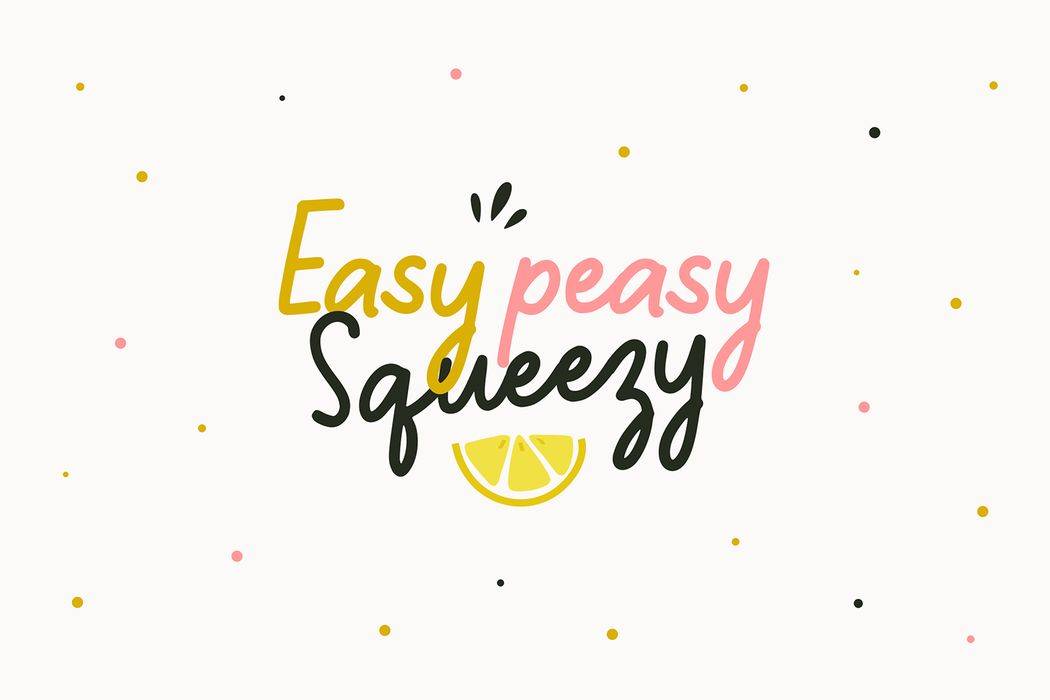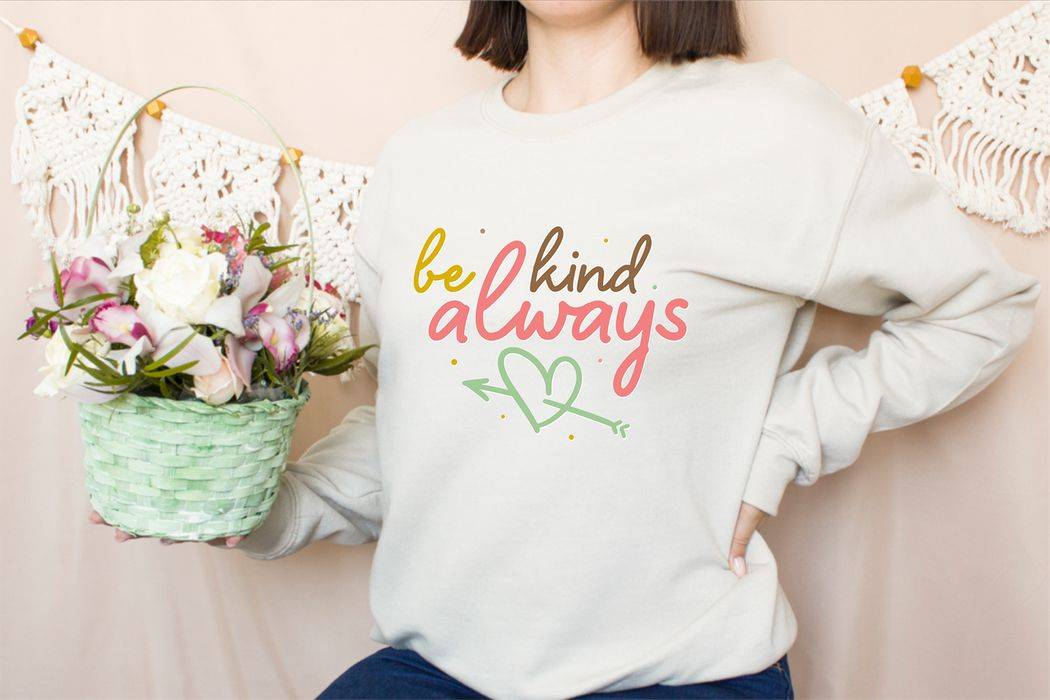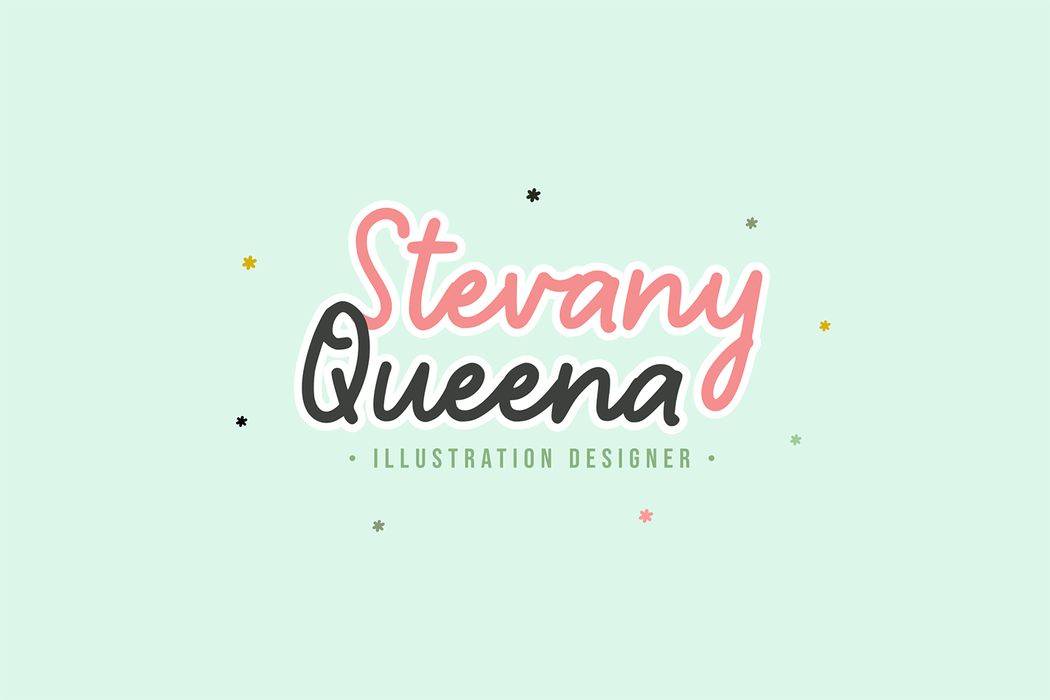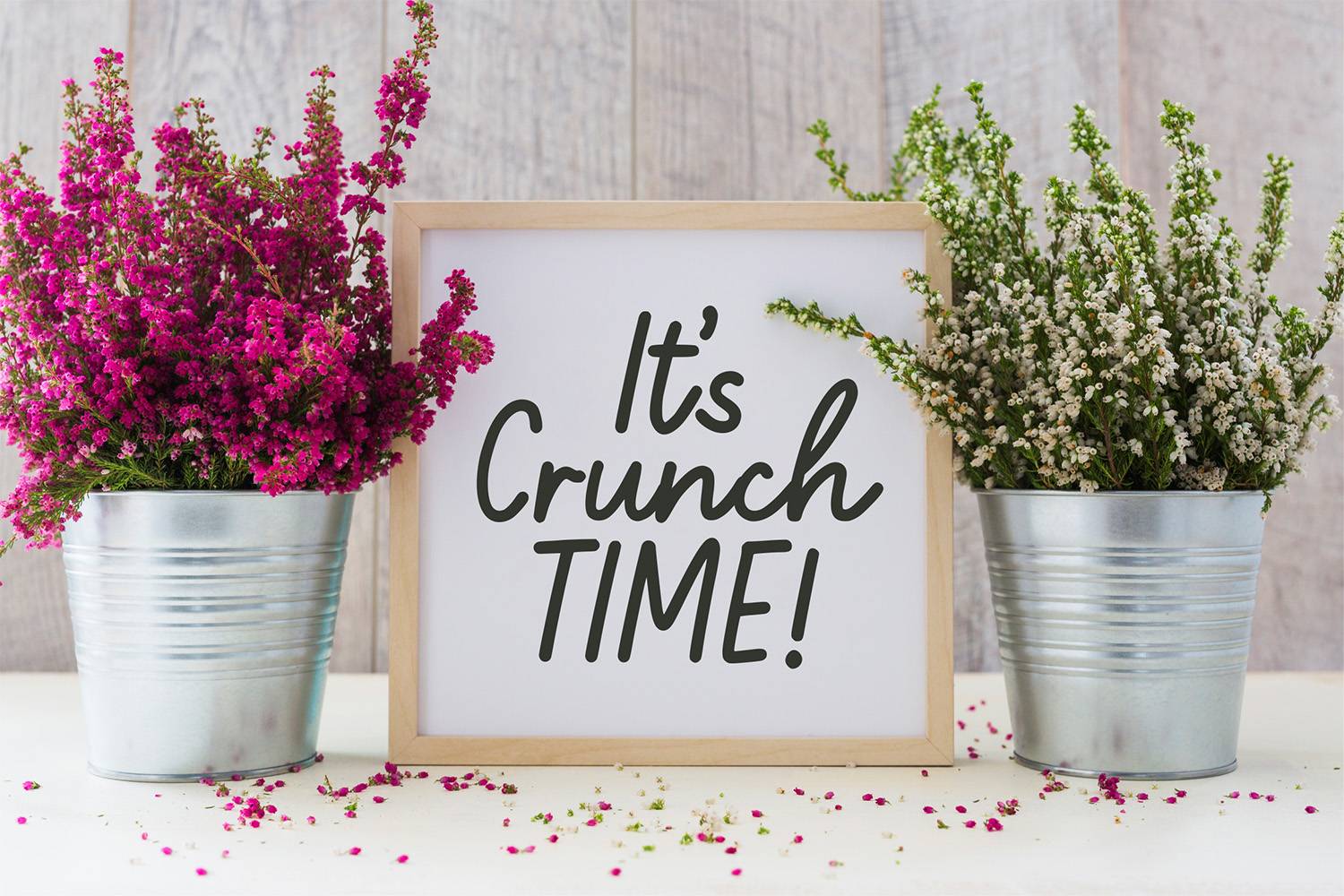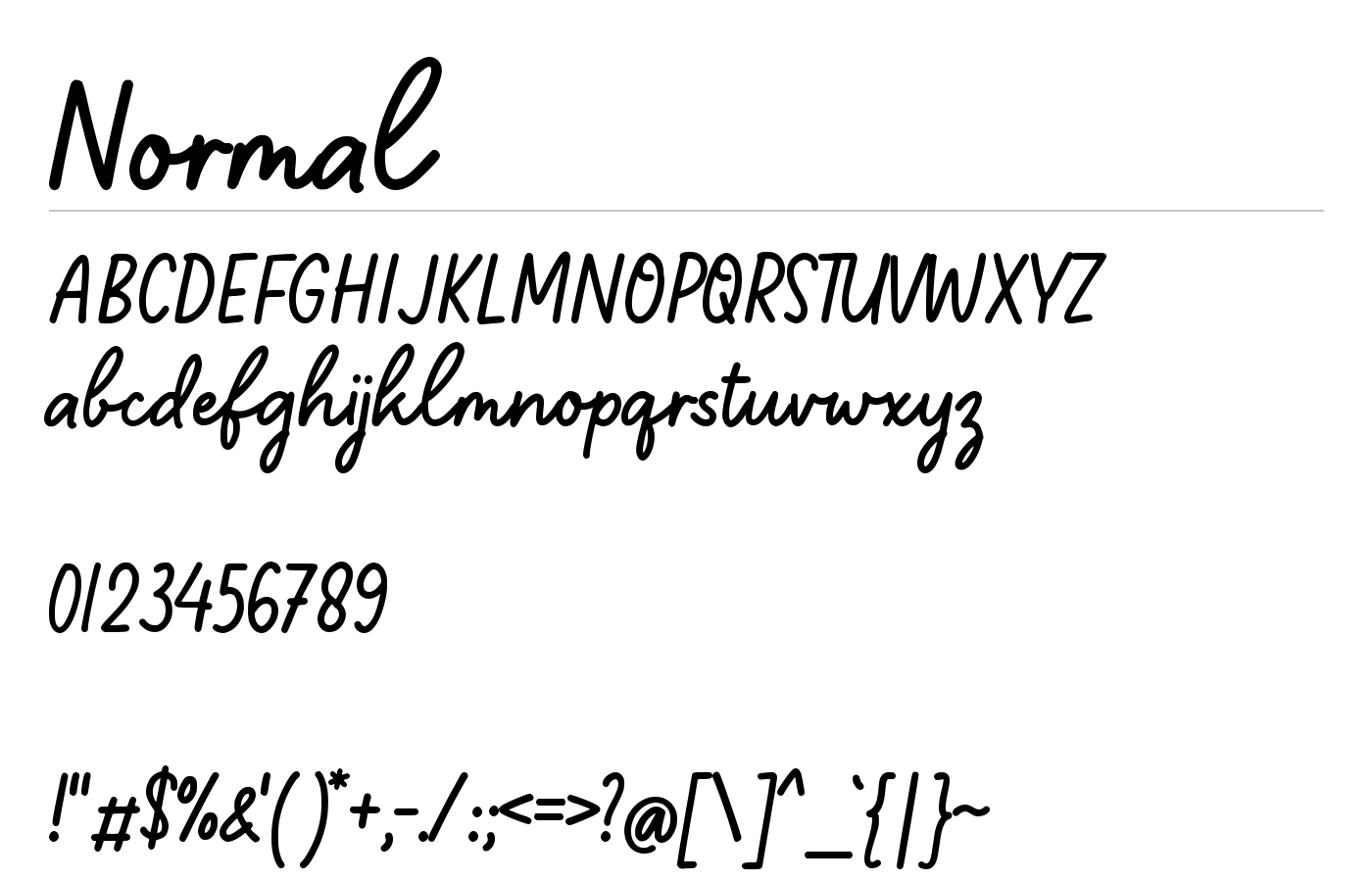
Lemonmint is a playful and casual script font that combines the charm of handwritten lettering with a sleek, slightly condensed form. Its smooth, flowing strokes and moderate x-height create an approachable and friendly feel, making it perfect for branding, invitations, and creative projects that seek warmth and personality. Ideal for headlines and logos, Lemonmint adds a fun and personal touch without sacrificing legibility.
Lemonmint Font